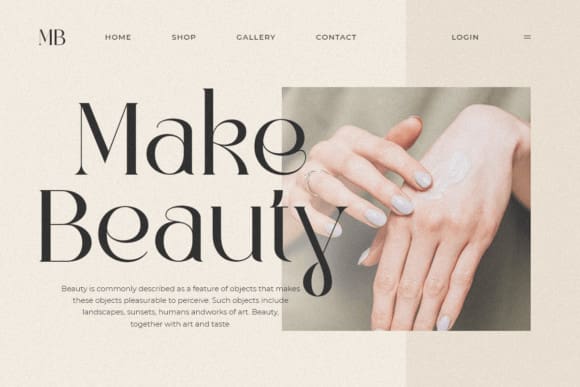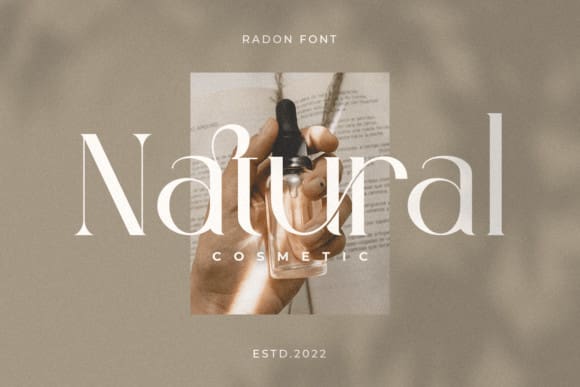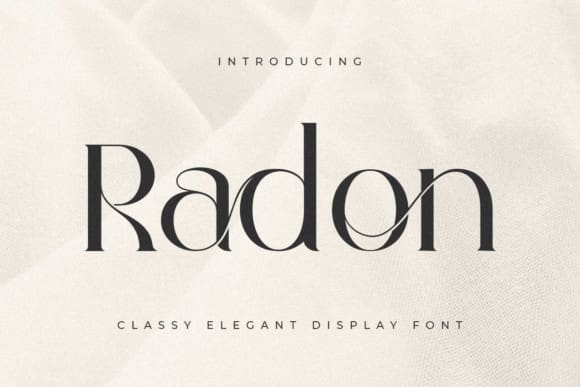
Radon Font
Radon Font is an elegant and bold serif font. Fall in love with its incredibly versatile style and use it to create gorgeous wedding invitations, beautiful stationary art, eye-catching social media posts, and much more!